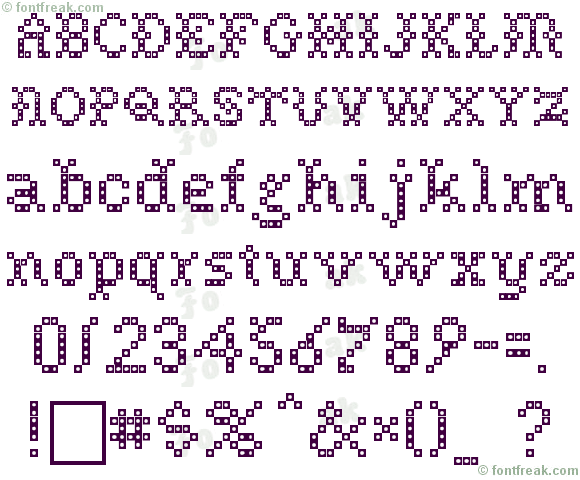
The Needle Point Sew font, designed by Pat Snyder, is a charming and playful decorative typeface that beautifully captures the essence of needlework and craft. With a unique blend of whimsical strokes and soft curves, this font falls into the category of display typefaces, making it perfect for eye-catching designs. Its moderate stroke weight and subtle contrast create a friendly appearance, while the thoughtful spacing between characters ensures legibility, even at larger sizes.
Visually, Needle Point Sew features a delightful, handcrafted style that mimics the look of stitches, making it ideal for projects that celebrate creativity and artistry. The font is characterized by rounded edges and a slightly irregular baseline, enhancing its handmade feel. This distinctive design invites viewers to engage with the text, making it particularly effective for various applications.
The Needle Point Sew font shines in contexts such as crafting blogs, children’s book covers, DIY project invitations, and even sewing-related merchandise packaging. Small business owners looking to infuse their branding with a personalized touch will find this font especially appealing, as it conveys warmth and approachability. Graphic designers and content creators can also leverage this unique typeface to enhance their visuals and draw attention to key messages.
What sets the Needle Point Sew font apart is its ability to evoke a sense of nostalgia and creativity, reminiscent of cozy afternoons spent engaging in needlework. This font not only communicates text but tells a story, making it a perfect choice for those looking to add personality to their designs. For those interested in exploring this delightful typeface, a Needle Point Sew font free download is available, allowing you to bring this artisanal touch to your projects.